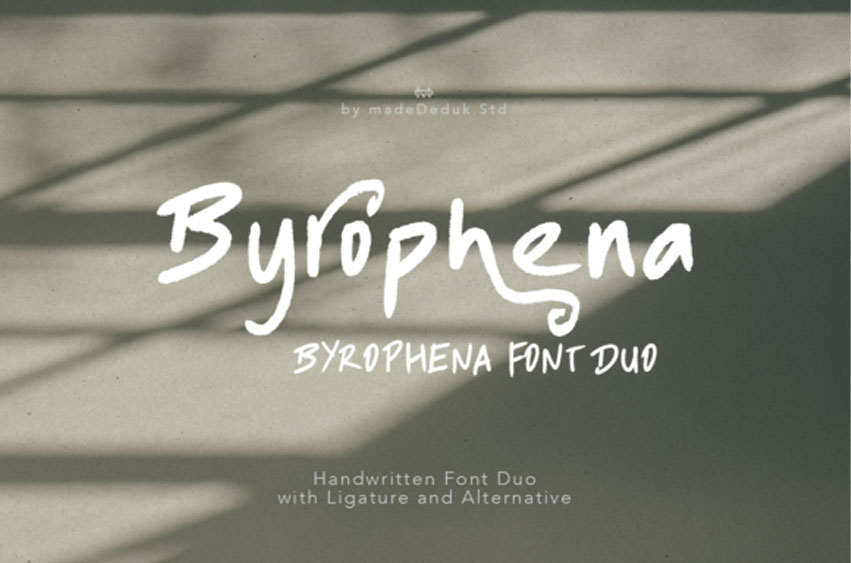
Byrophena Font
Byrophena Font is a casual handwritten font duo that blends natural texture with expressive form, making every design feel both personal and dynamic. Its standout character lies in the brush-like strokes and organic rhythm, mimicking quick, confident handwriting with just the right amount of irregularity.
The font includes two complementary styles—one bold and punchy, the other lighter and more fluid—ideal for layering or contrasting emphasis. Decorative alternates and ligatures further enhance its uniqueness. Whether used in skincare branding, quotes, logos, or lifestyle products, Byrophena delivers warmth, authenticity, and effortless modern style.